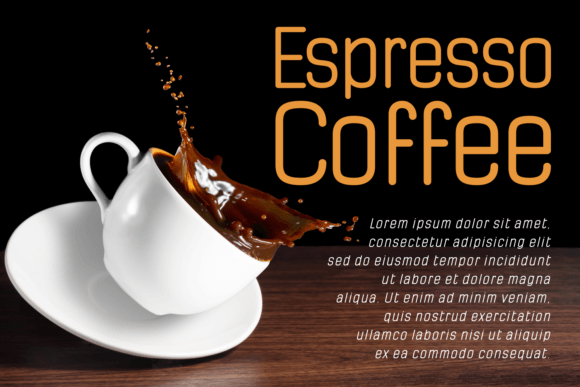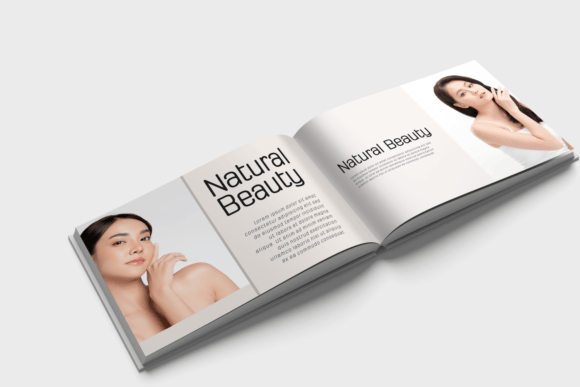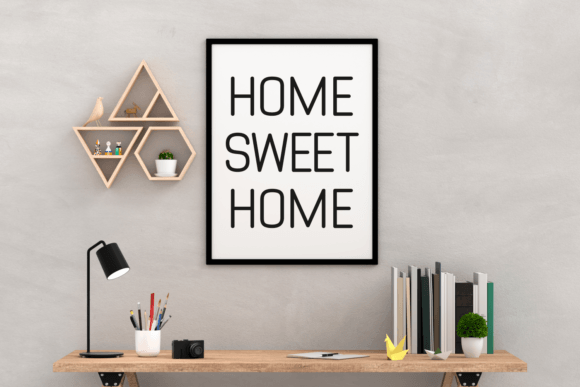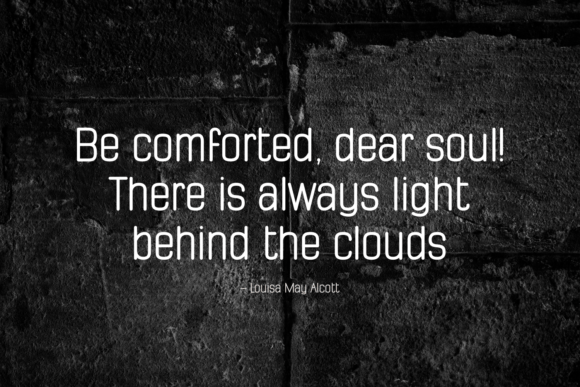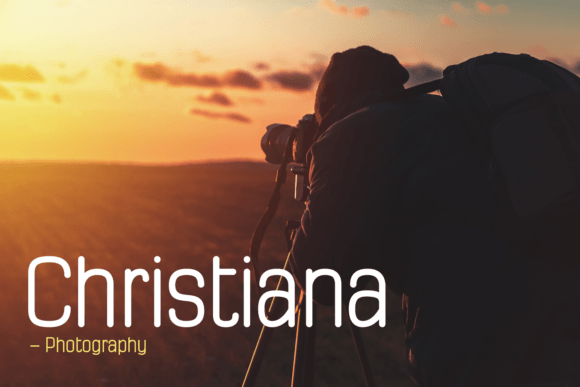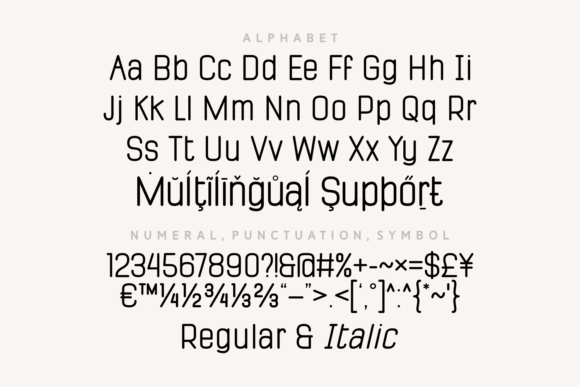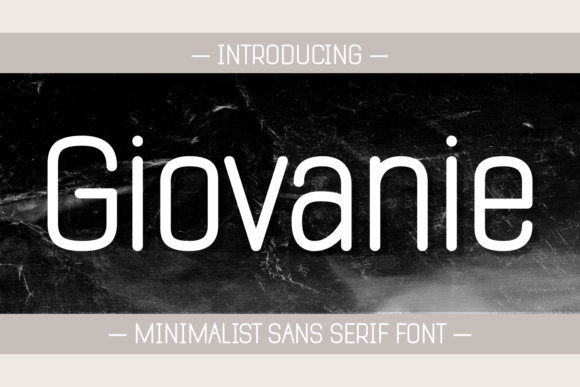
Introducing Giovanie Font: The Ultimate Sans Serif for Modern Design
Are you on the hunt for a font that embodies the perfect blend of style, versatility, and readability? Look no further than Giovanie Font. This neat and casual sans serif font is making waves in the design community, and for good reason. Its incredibly versatile and readable design makes it the perfect choice for a wide range of applications, from branding and logos to stickers, t-shirts, and beyond.
The Characteristics of Giovanie Font
Giovanie Font boasts a sleek and stylish aesthetic that is sure to elevate any design project. Its sans serif design ensures a clean and modern look that is both visually appealing and highly legible. The font’s casual vibe makes it perfect for designers who want to add a touch of personality to their work without sacrificing professionalism.
What Makes Giovanie Font So Versatile?
One of the standout features of Giovanie Font is its versatility. This font can be used in a variety of contexts, from digital platforms to print materials. Whether you’re designing a logo, creating a social media graphic, or crafting a t-shirt design, Giovanie Font is up to the task. Its clean lines and simple design make it easy to pair with other fonts, and its readability ensures that your message will be communicated clearly and effectively.
Perfect for Branding and Logos
When it comes to branding and logos, the font you choose can make all the difference. Giovanie Font is an excellent choice for businesses looking to establish a modern and stylish identity. Its sleek design and casual vibe make it perfect for startups, small businesses, and established brands looking to refresh their image. With Giovanie Font, you can create a logo that is both memorable and meaningful.
Great for Crafters and DIY Enthusiasts
Giovanie Font isn’t just for professional designers. Crafters and DIY enthusiasts will also love this font for its ease of use and stylish design. Whether you’re creating handmade cards, designing custom stickers, or crafting t-shirts, Giovanie Font is a great choice. Its simplicity and readability make it perfect for a wide range of craft projects.
Tips for Using Giovanie Font
To get the most out of Giovanie Font, here are a few tips to keep in mind:
- Pair it with other fonts: Giovanie Font works well with a variety of other fonts, so don’t be afraid to experiment with different combinations.
- Use it in different sizes: Giovanie Font is highly legible, even at small sizes, making it perfect for a wide range of applications.
- Experiment with colors: Giovanie Font looks great in a variety of colors, so don’t be afraid to get creative.
In conclusion, Giovanie Font is a versatile and stylish sans serif font that is perfect for designers, crafters, and DIY enthusiasts alike. Its sleek design, casual vibe, and high readability make it an excellent choice for a wide range of applications, from branding and logos to stickers, t-shirts, and beyond. Whether you’re a professional designer or just starting out, Giovanie Font is definitely worth checking out.